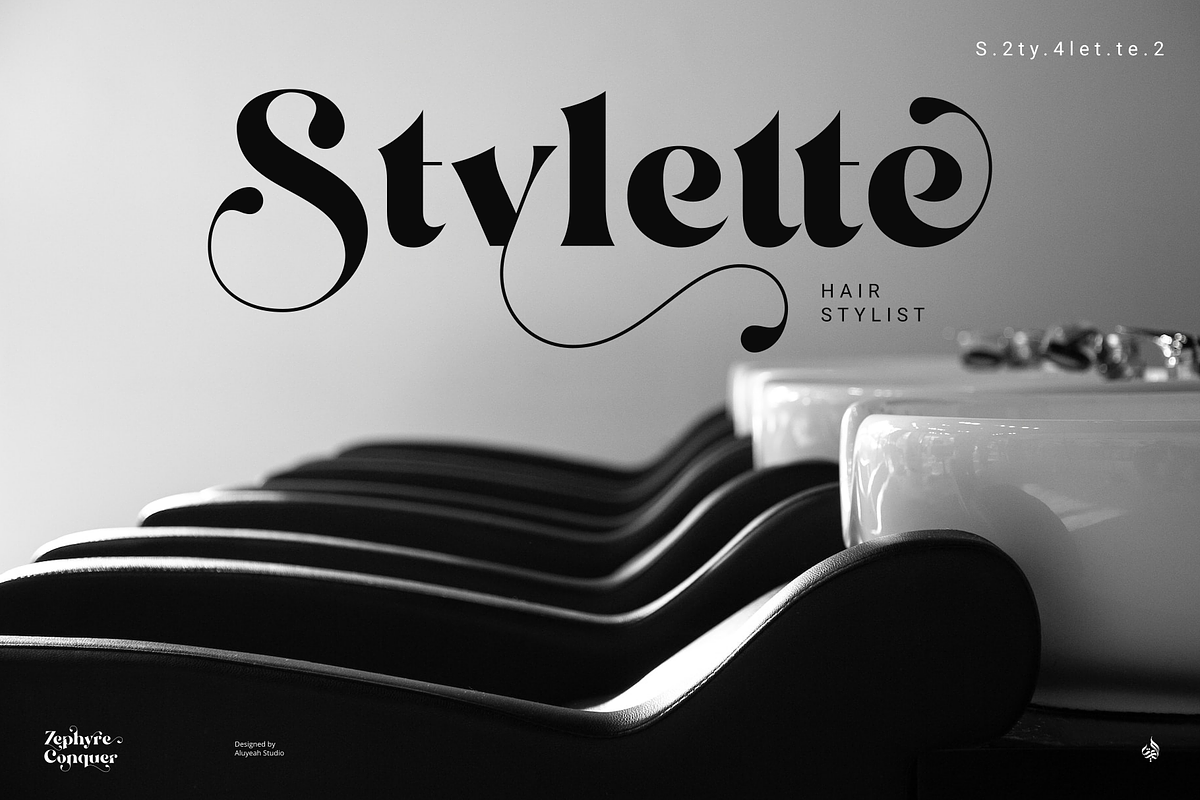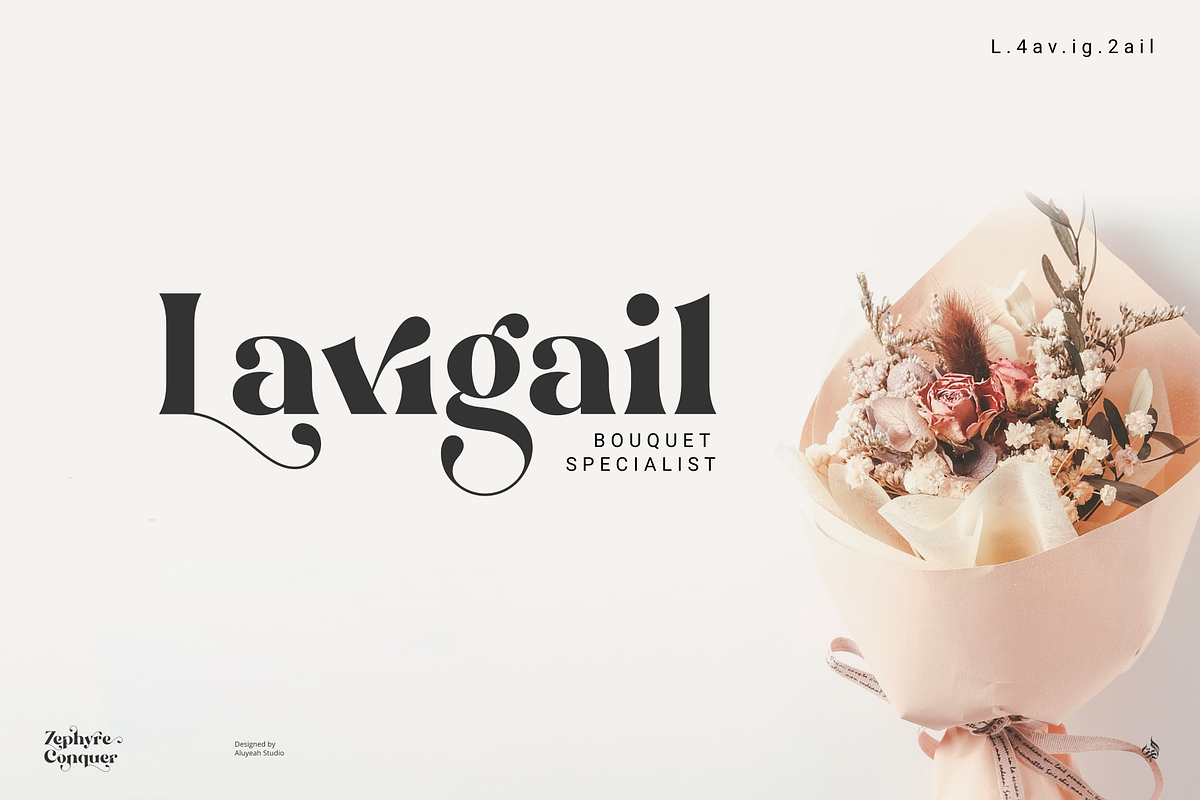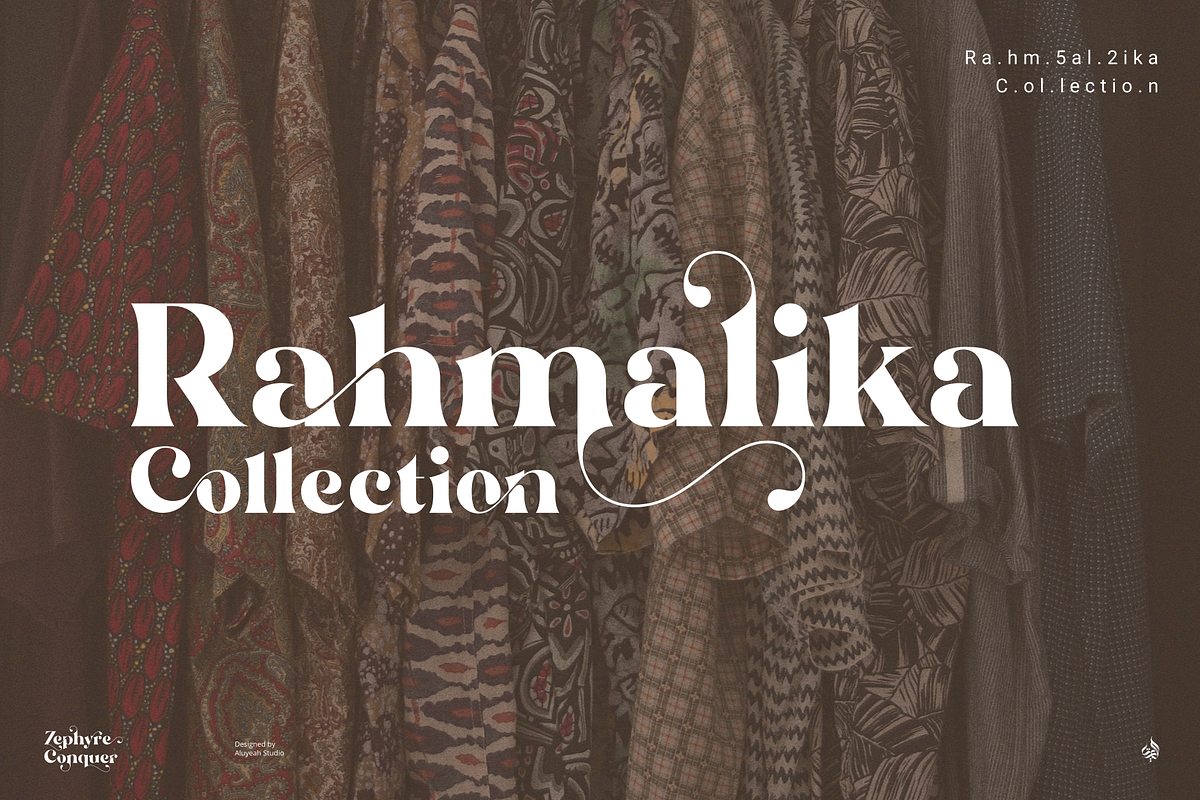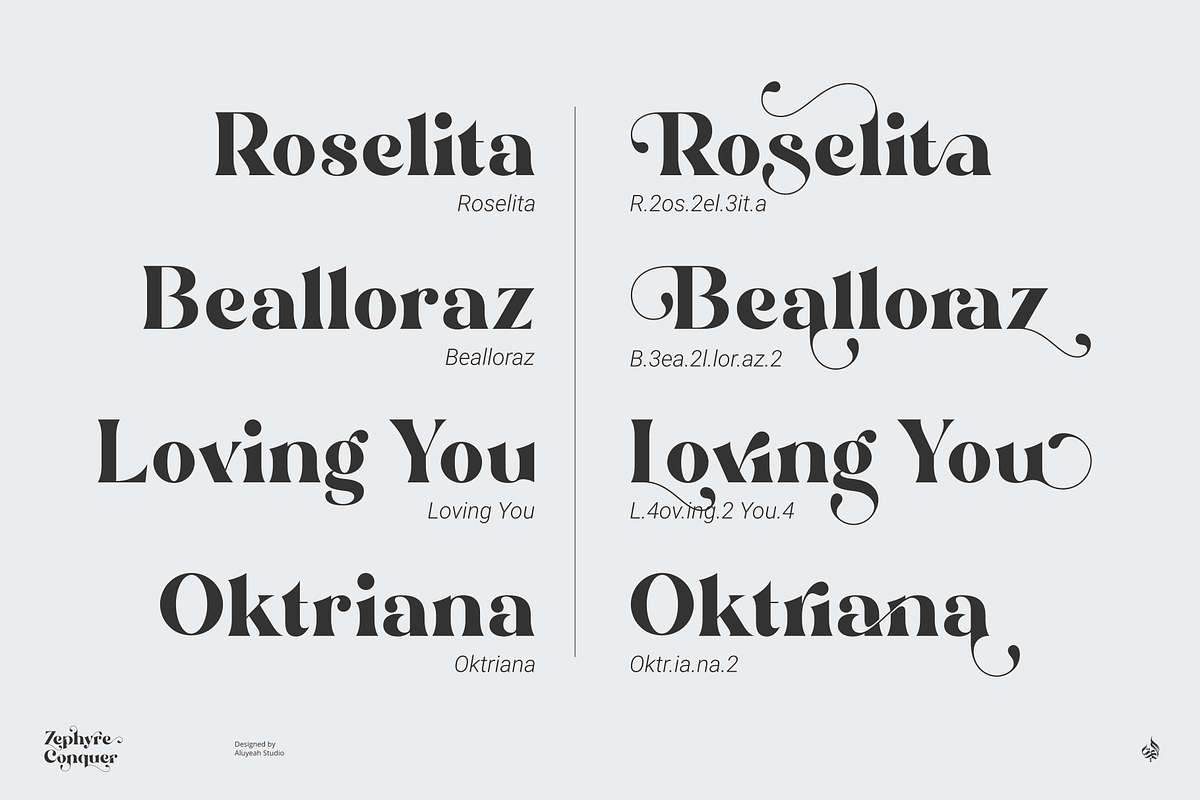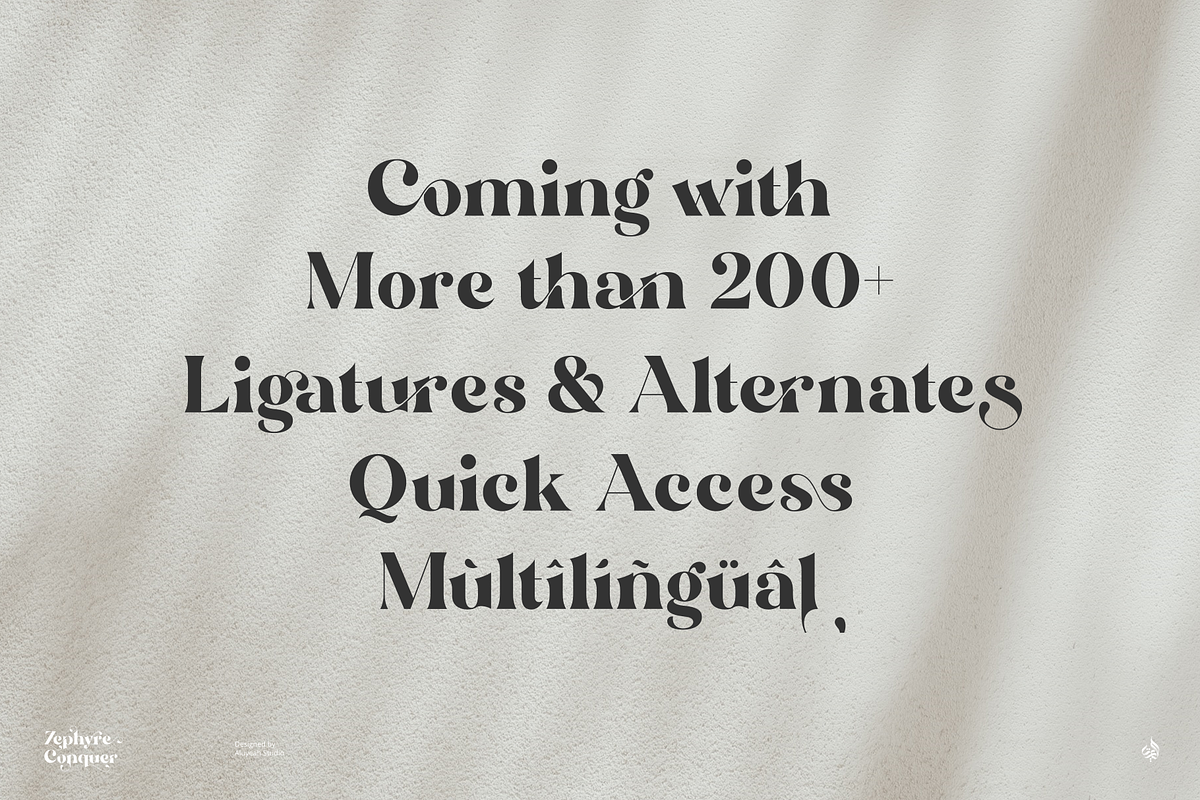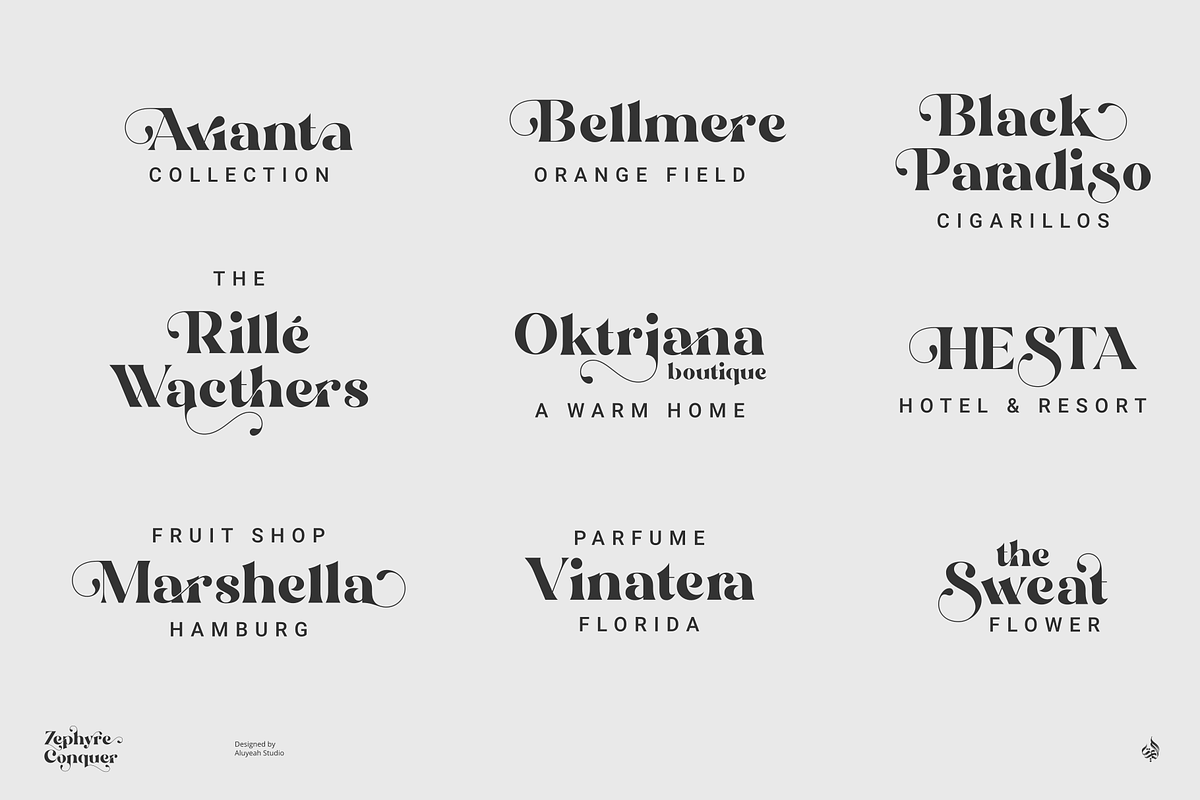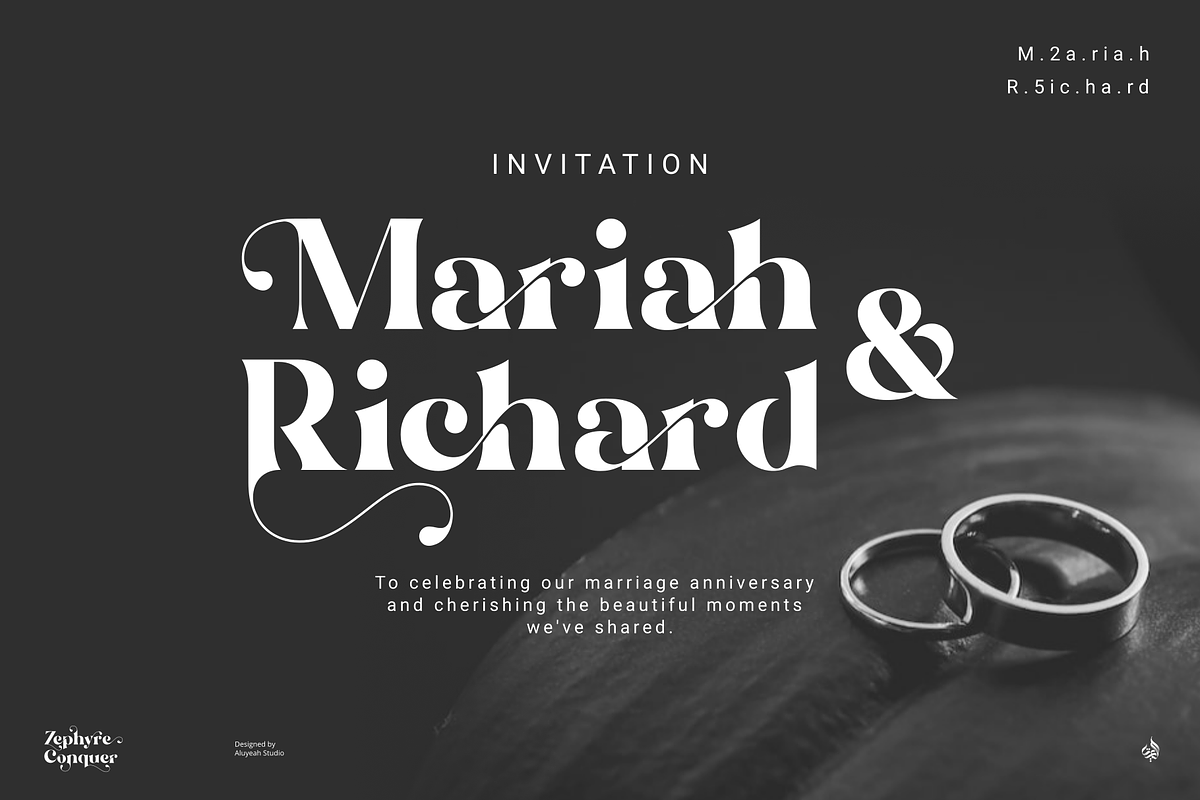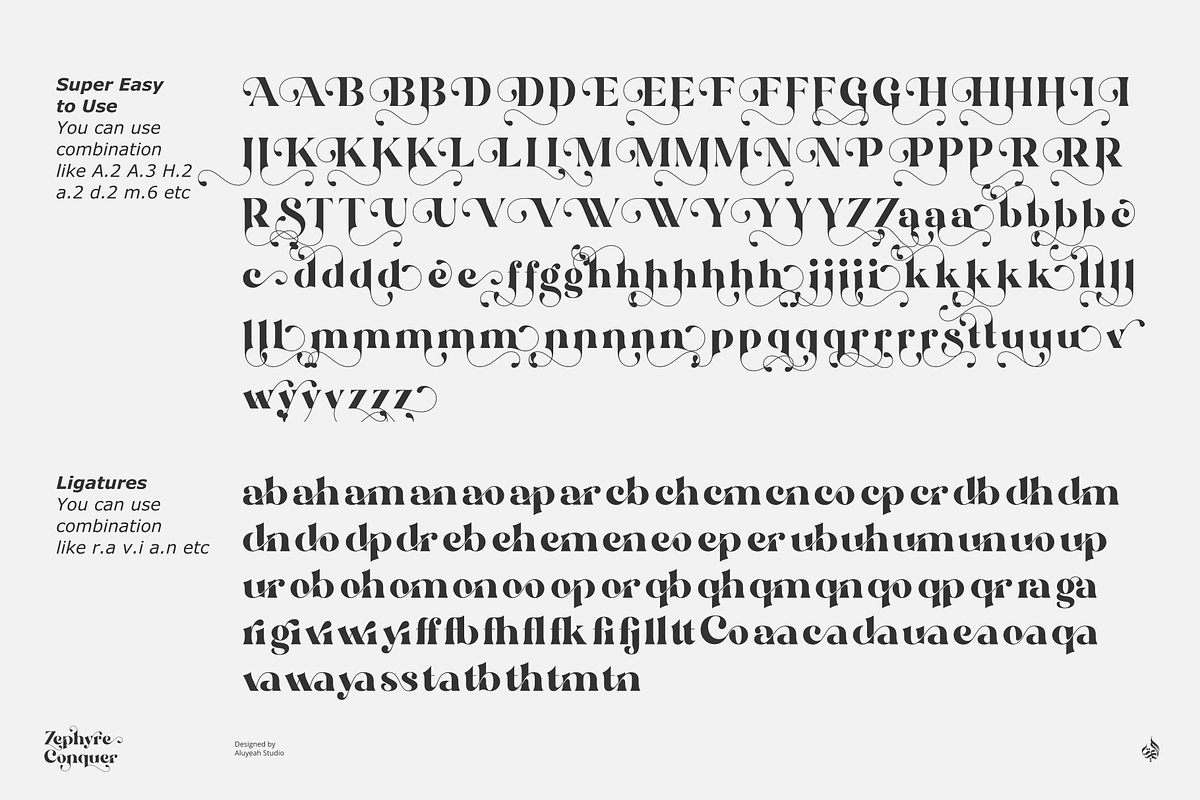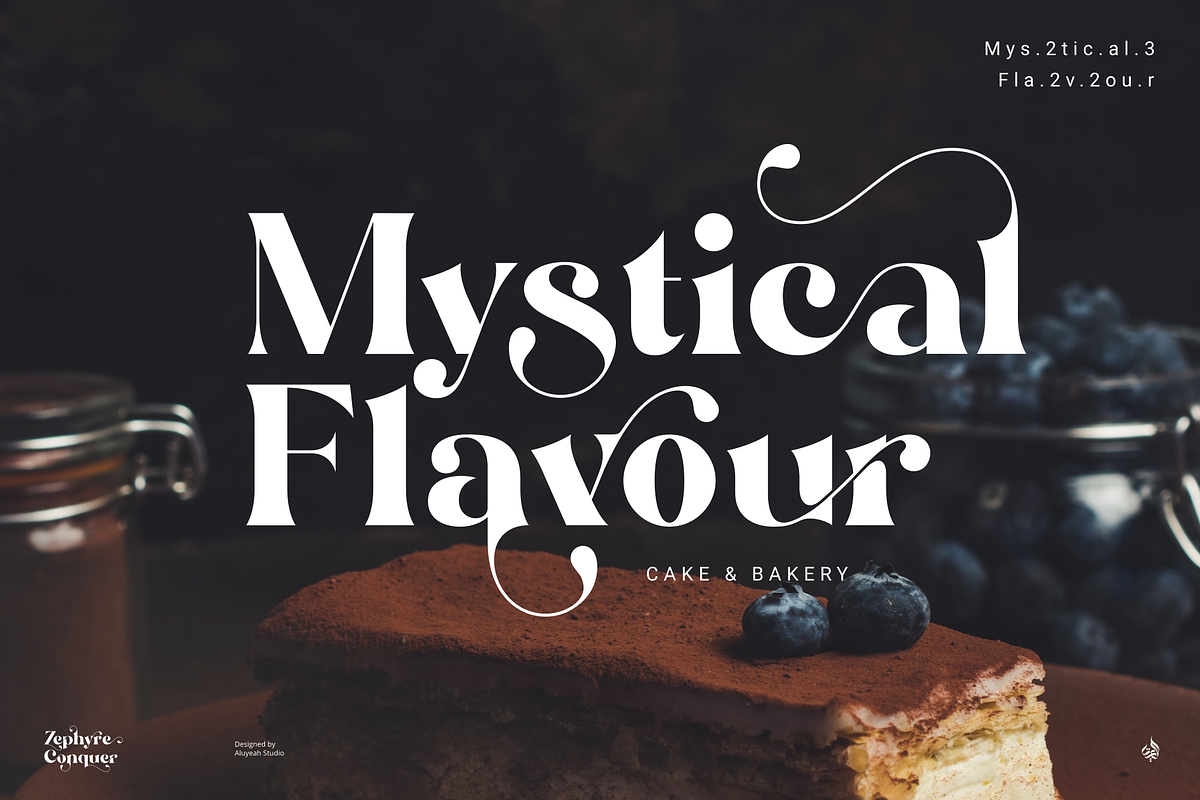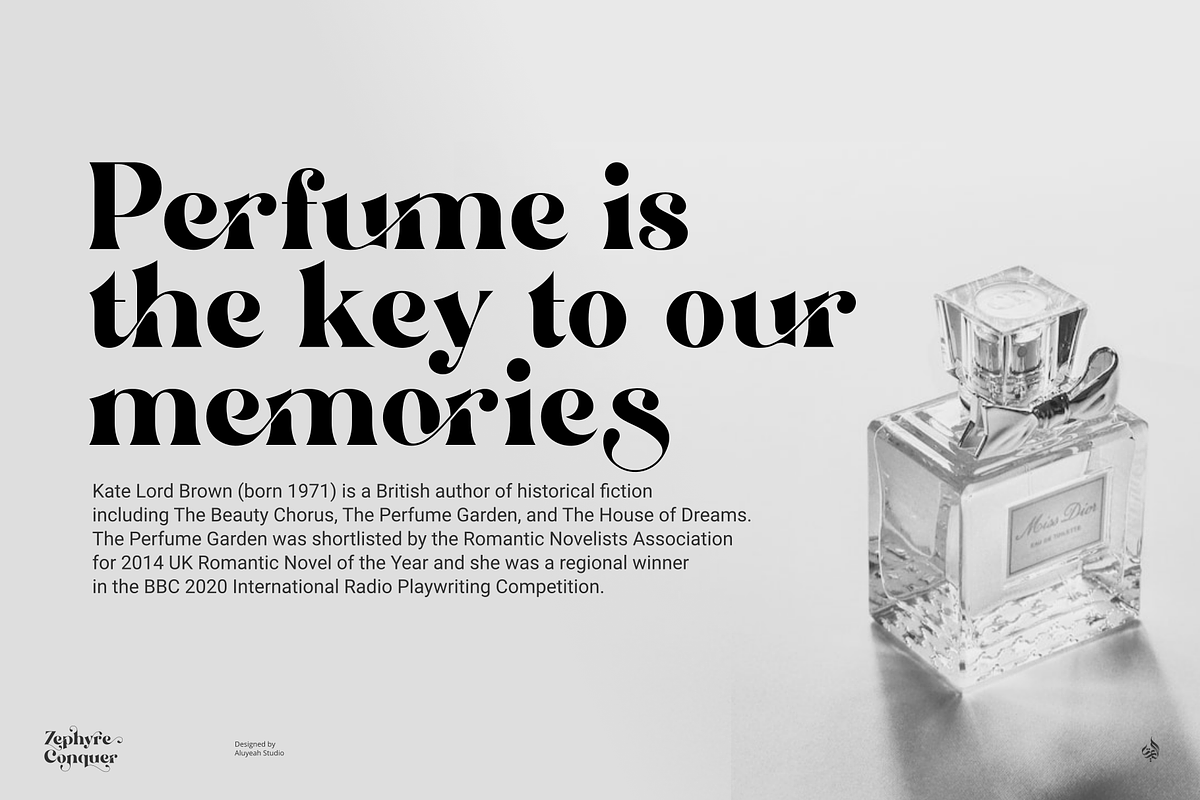
Zephyre Conquer
Unveiling the Zephyre Conquer, a luxurious windy ligature display typeface, which masterfully blends the mysterious allure of the zephyr with the beauty and grace. It's a unique amalgamation of mindful design and desire that creates an inexplicably elegant aesthetic. Conquer and capture attention whilst adding a dash of elegance to your projects with Zephyre Conquer.
Indulge in an opulent collection of more than 200+ quick-access ligatures and alternatives with Zephyre Conquer. It presents everyone the luxury to summon deeper creativity and mold their artistry with grace.
- OpenType support
- Multilingual support (15 languages)
- Super Easy to Use alternates - You can easily call alternates using special combination like B.2 a.3 n.4 e.r g.i etc.